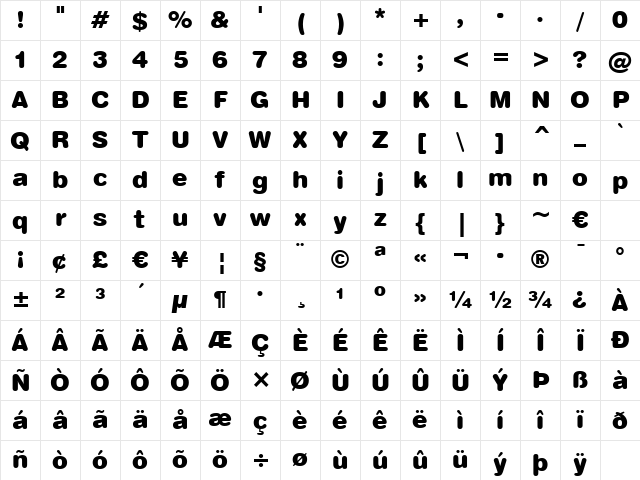
Complete Swis721 BlkRnd BT Black glyph index. Displaying only characters natively supported by Swis721 BlkRnd BT Black font.
Swis721 BlkRnd BT is a composed and adaptable typeface that performs quietly and consistently across a wide range of design contexts.